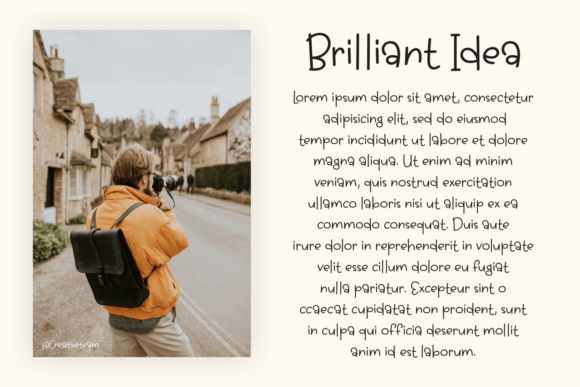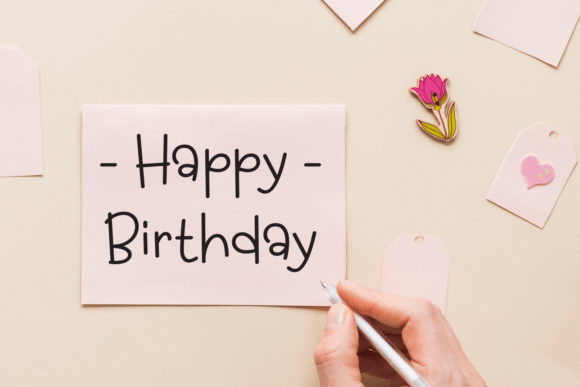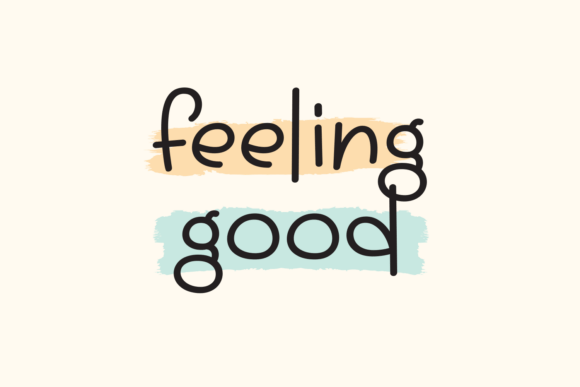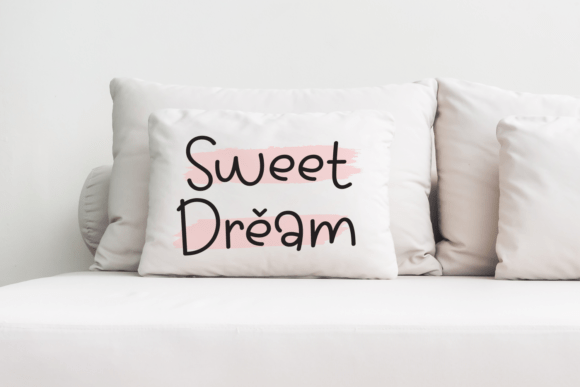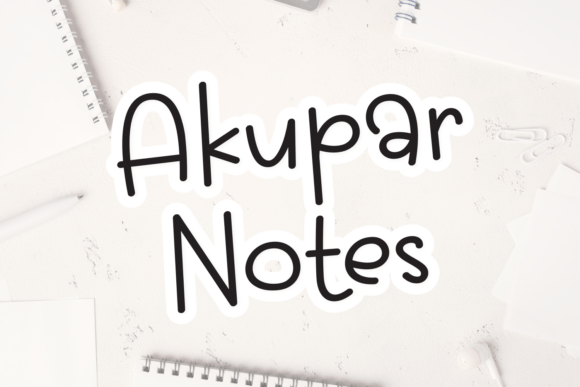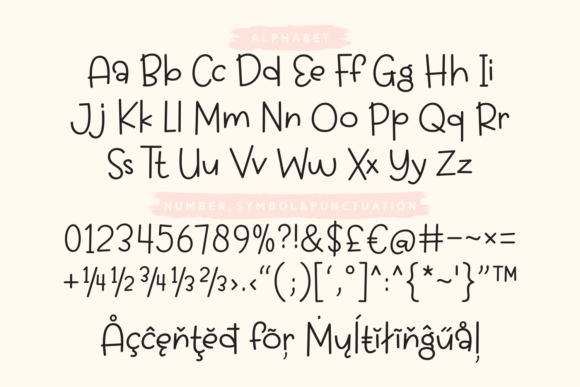
Introducing the Creative Team Font: A Joyful Spirit in Every Stroke
In the world of typography, a font can make all the difference in the success of a design project. Whether you’re working on a digital platform or a print material, the right font can elevate your text from ordinary to extraordinary. This is where the Creative Team Font comes in – a handwritten typeface that embodies a joyful spirit in each stroke, injecting an endearing charm into any project.
A Playful Font with Adorable Cuteness
The Creative Team Font is a playful font that effortlessly brightens up any text with its lovable and adorable cuteness. Its unique handwritten style gives it a personal touch, making it perfect for designers and crafters looking to add a human element to their work. Whether you’re designing a children’s book, a greeting card, or a social media post, this font is sure to bring a smile to your audience’s faces.
Elegance in Simplicity: The Monoline Style
What sets the Creative Team Font apart is its monoline style – an emblem of elegance in simplicity. This simple font stays true to minimalistic design principles while still exuding personality and warm character. The monoline style gives the font a clean and modern look, making it perfect for designers who appreciate the beauty of simplicity.
A Perfect Conversation Starter
The Creative Team Font’s distinctive features make it a perfect topical conversation starter. Its unique blend of playfulness and simplicity is sure to grab attention and spark interesting discussions. Whether you’re designing a poster, a flyer, or a social media post, this font is guaranteed to make your text stand out from the crowd.
Ideal for a Range of Purposes
The Creative Team Font is an ideal choice for a range of purposes, including:
- Digital projects: Use it for website headers, social media posts, and digital ads to add a personal touch to your online presence.
- Print materials: Use it for brochures, flyers, posters, and business cards to add a touch of elegance and sophistication.
- Crafting projects: Use it for handmade cards, scrapbooking, and other craft projects to add a personal and creative touch.
Key Features of the Creative Team Font
The Creative Team Font comes with a range of key features that make it a versatile and practical choice for designers and crafters. Some of its key features include:
- Handwritten style: Gives the font a personal and unique touch.
- Monoline style: Adds elegance and simplicity to the font.
- Playful and adorable: Injects a joyful spirit into any text.
- Easy to read: Clear and legible, making it perfect for digital and print materials.
In conclusion, the Creative Team Font is a versatile and practical choice for designers and crafters looking to add a personal touch to their work. Its unique blend of playfulness, simplicity, and elegance makes it perfect for a range of purposes, from digital projects to print materials and crafting projects. With its adorable cuteness and lovability, the Creative Team Font is sure to brighten up any text and make it stand out from the crowd.
Get Creative with the Creative Team Font